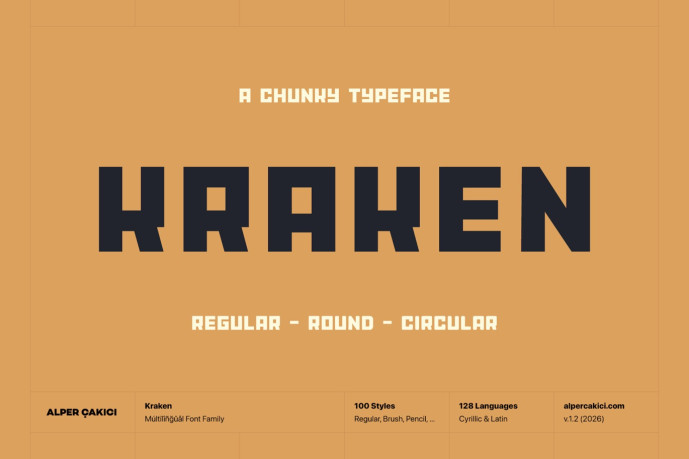
Kraken – Display Font Family
Kraken is a bold, chunky, and powerful display typeface designed to make a strong visual impact. Built with a solid structure and confident presence, it combines rugged texture with modern versatility.
The family features 100 unique instances, including aged, brush, outline, sketchy, grainy, and more, Kraken adapts effortlessly. Its circular and rounded alternatives provide softer options, while edgy and distressed styles bring raw energy and character.
Whether you’re aiming for bold editorial statements or textured, handcrafted aesthetics, Kraken delivers strength, flexibility, and personality in every letter.